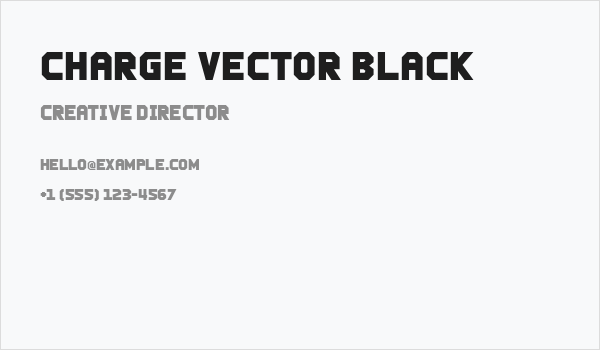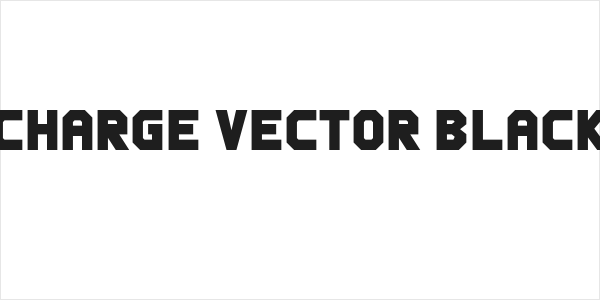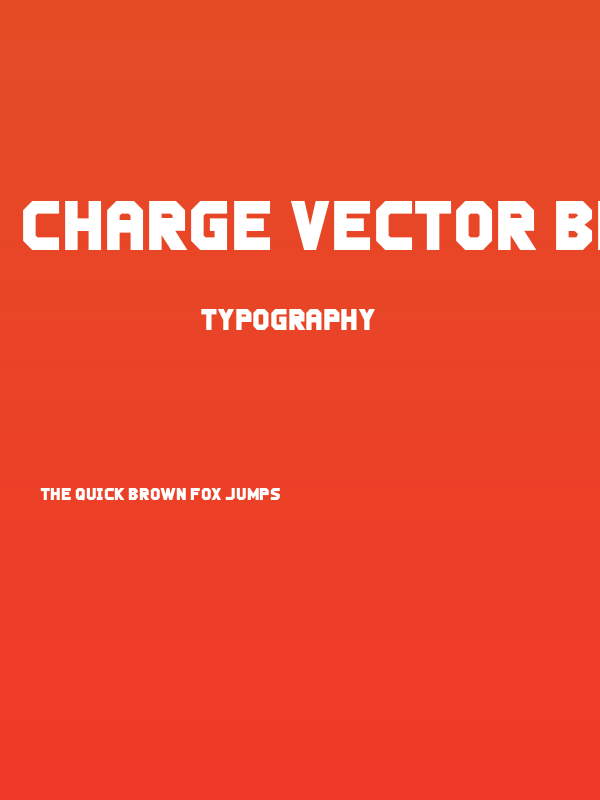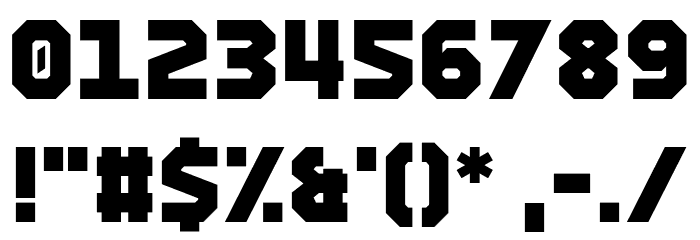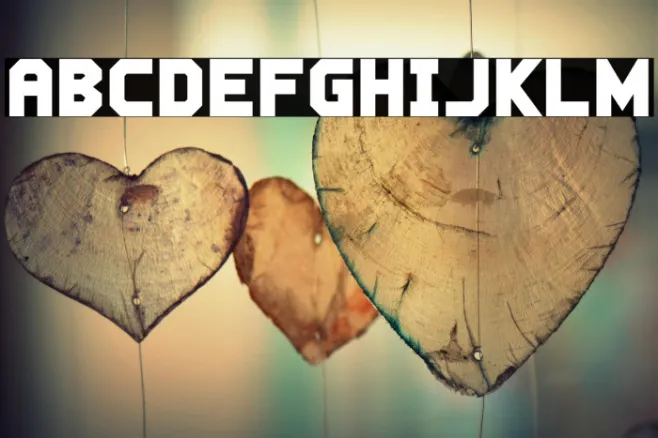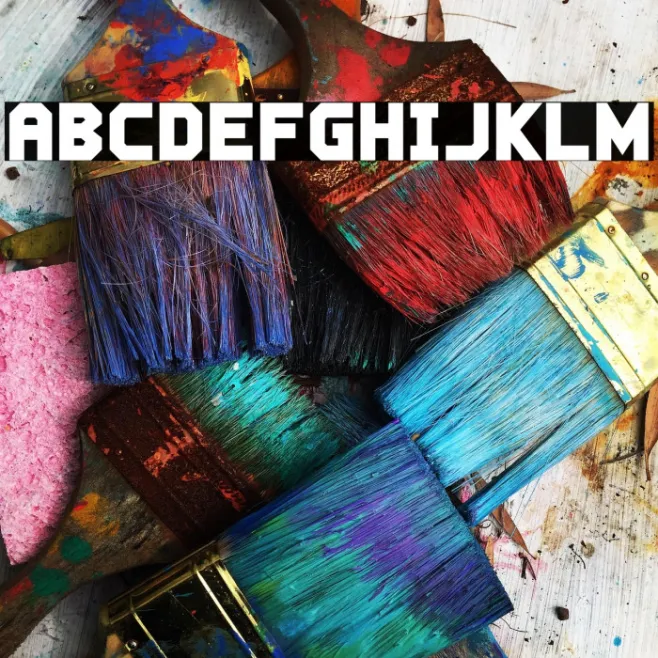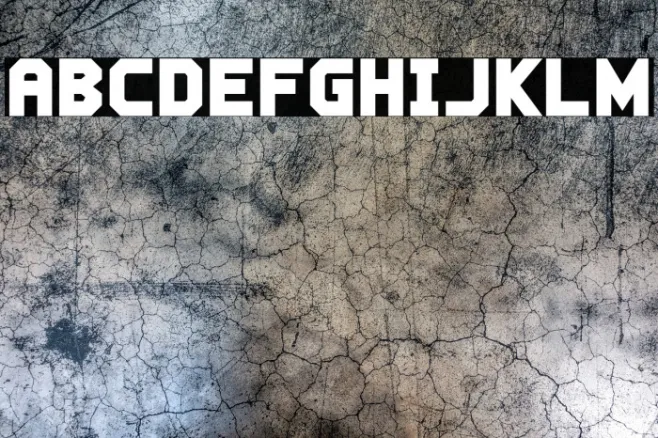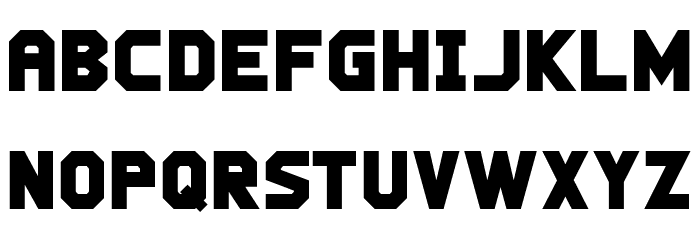
Charge Vector Black Font
Charge Vector Black Description
This font features a bold and geometric design with strong, angular lines and a blocky appearance. The characters are uniformly thick, creating a powerful and impactful visual presence. The uppercase and lowercase letters maintain a consistent style, emphasizing a sense of uniformity and strength. The numbers and special characters follow the same design principles, ensuring a cohesive look across all elements. Its boldness and geometric precision make it suitable for projects that require a modern and assertive aesthetic.
| Proposed Projects | Ideal for branding, sports team logos, posters, and any project needing a strong, modern look. |